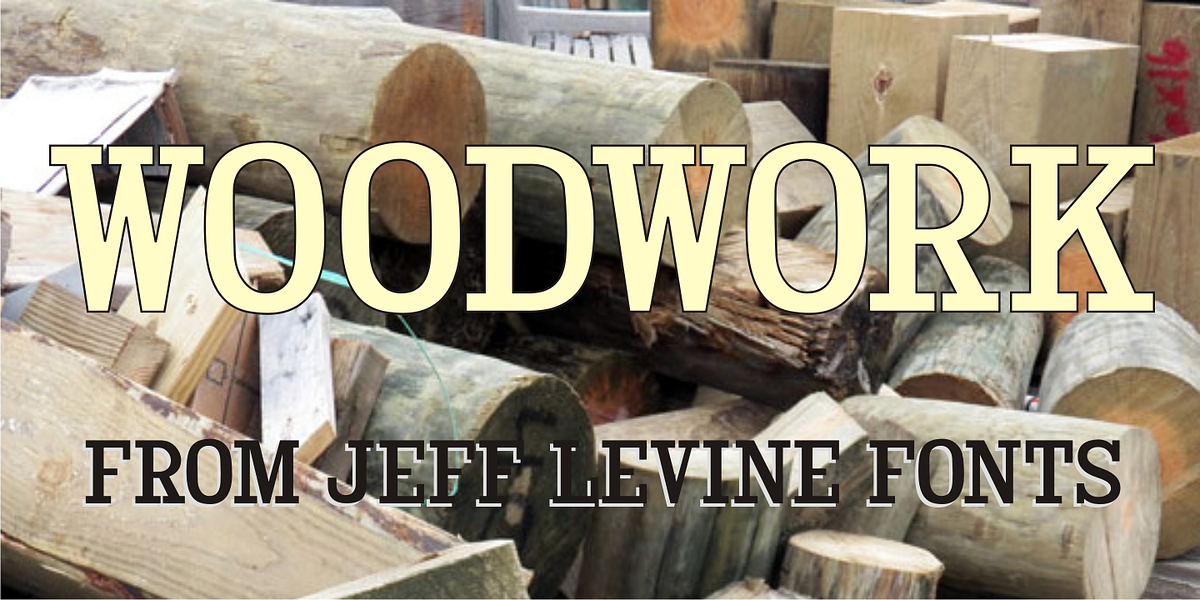
Woodwork JNL
What sets wood type apart from the lettering designs created in the digital age is the simple premise that it is hand made. Woodwork JNL contains all of the slightly asymmetrical curves, unusual letter forms and incremental letter weight variations that add a "real world" touch to all print and web designs that seek the old-fashioned charm of another era.